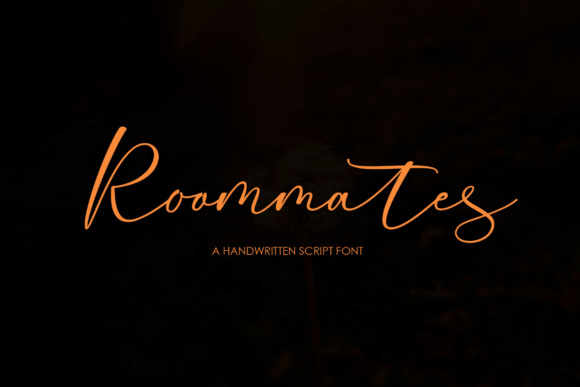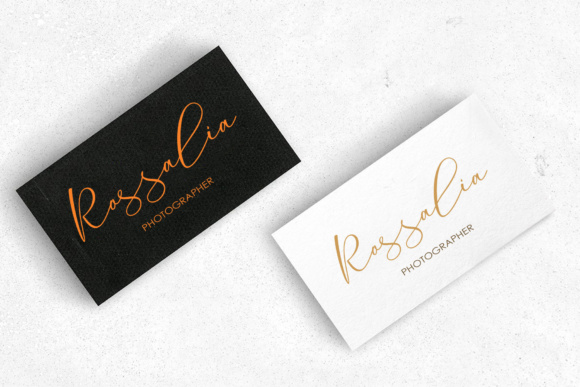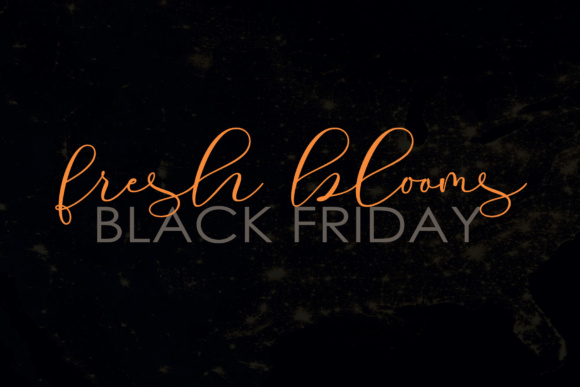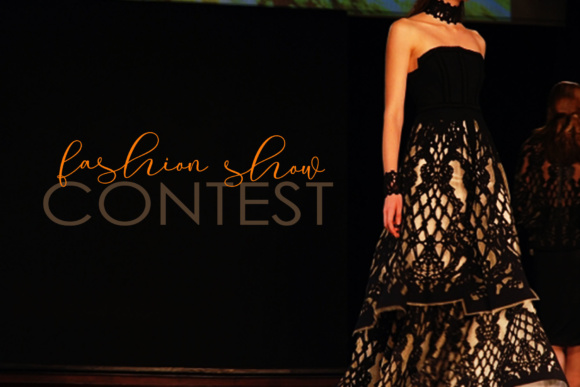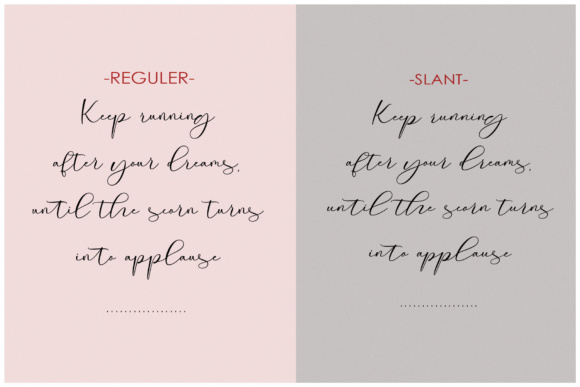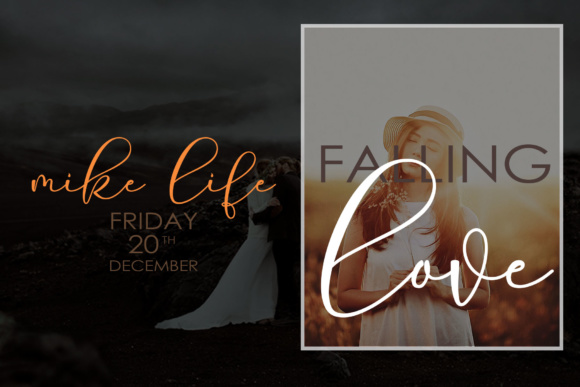
Introduction to Roommates Script Font
The Roommates Script offers you a beautiful typographic harmony for a variety of project designs.
It can be used for logos and branding, wedding designs, social media posts, advertising, product design and for any business that wants to appear classy and chic Roommates Script comes in two variants: Regular & Slant.